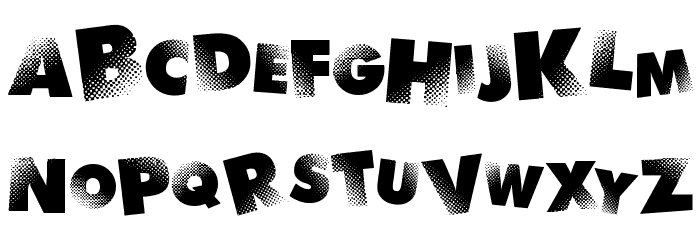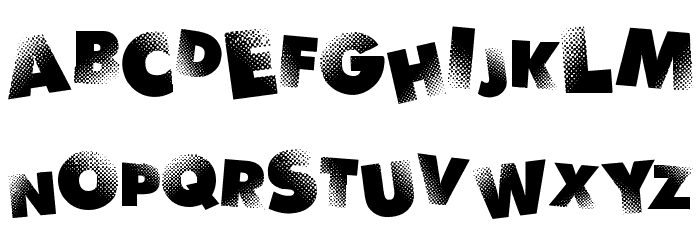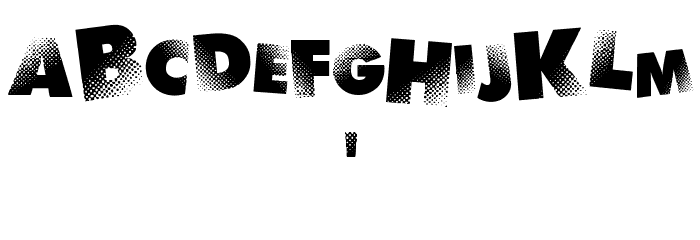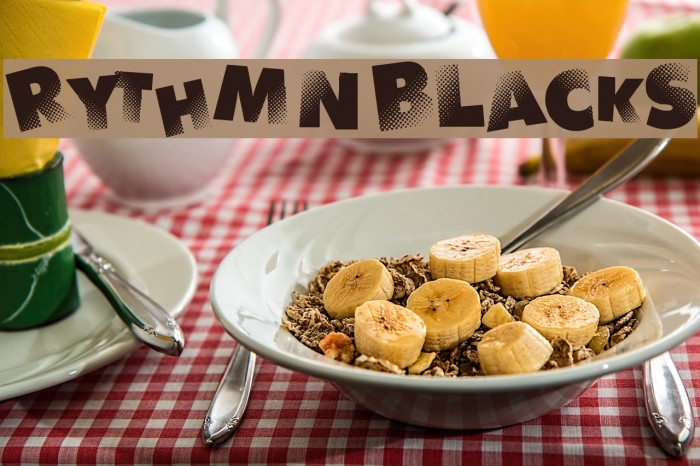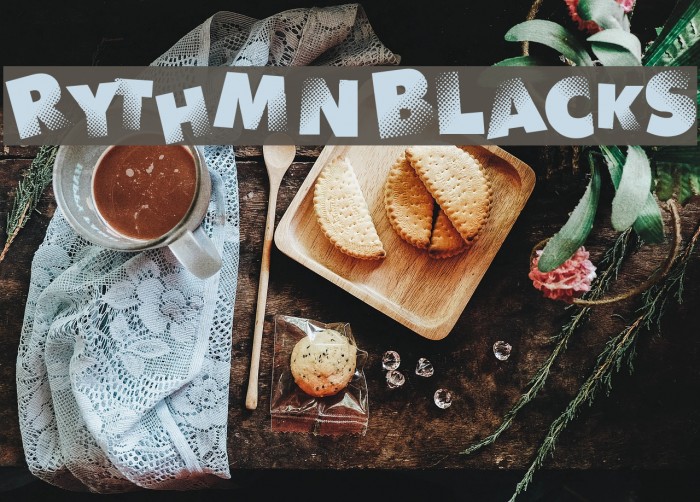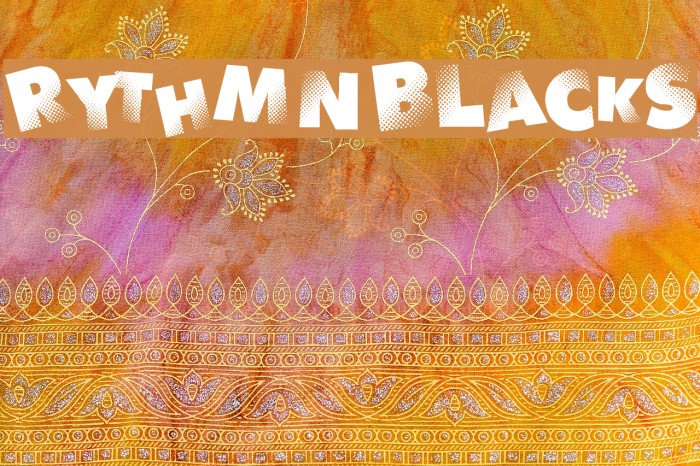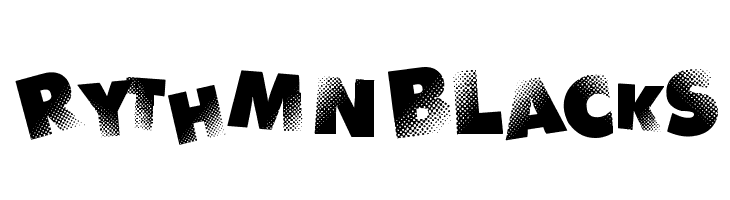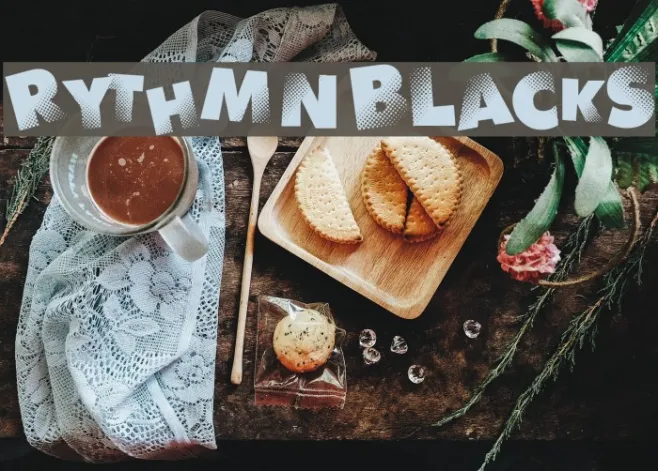
Rythm N Blacks Font
This font features a bold and playful style with a unique halftone pattern that gives it a dynamic and energetic appearance. The letters are slightly irregular in shape, adding to its whimsical and fun character. The boldness of the font makes it stand out, while the halftone effect adds a retro, comic book-like feel. The uppercase and lowercase letters maintain a consistent style, with a strong presence and a sense of movement. This font is perfect for projects that require a lively and eye-catching design.
A bold, playful font with a halftone pattern and a retro comic book feel.
- Proposed Projects: Ideal for comic book titles, playful posters, children's book covers, and retro-themed designs.
- Overall Style: Retro, Playful, Energetic
- Use Case: Headlines, Posters, Logos